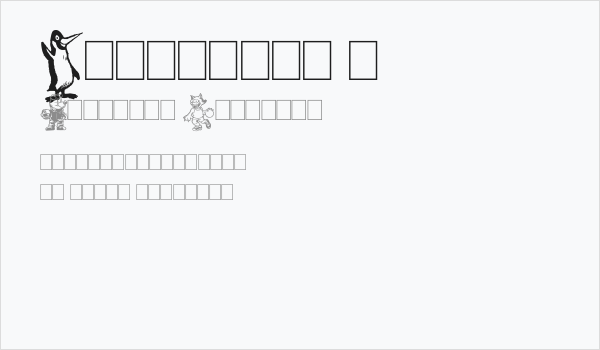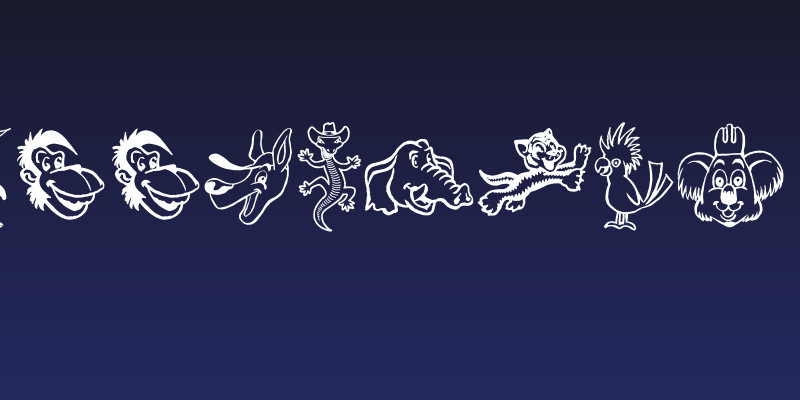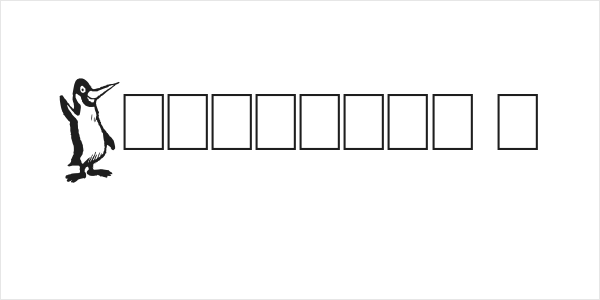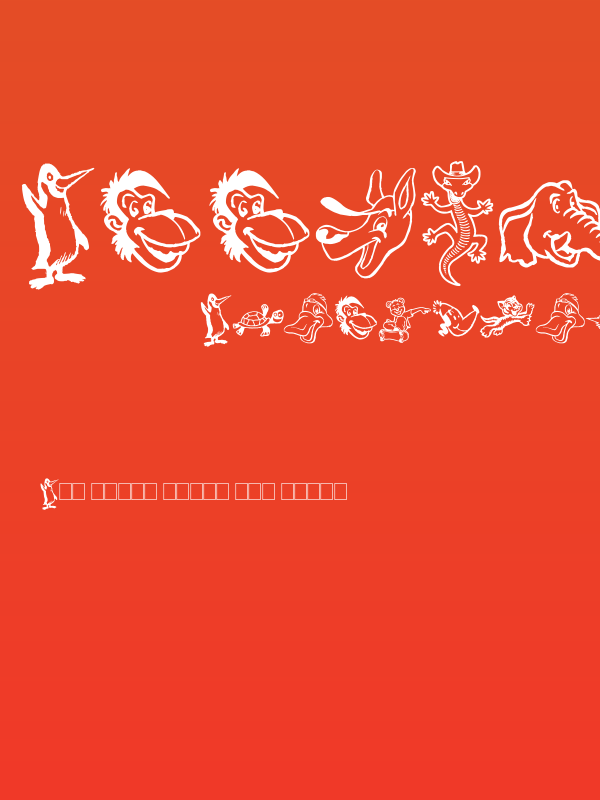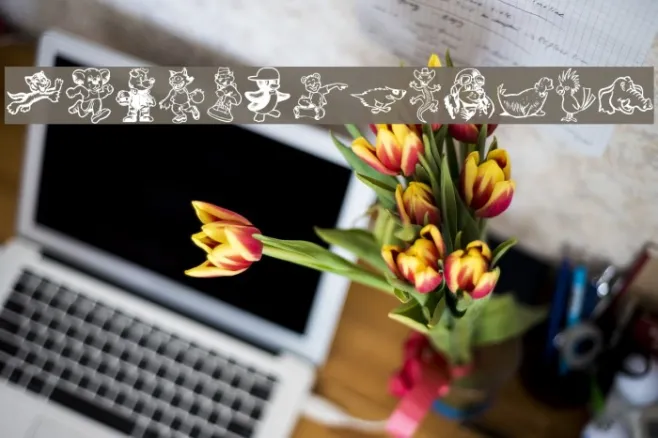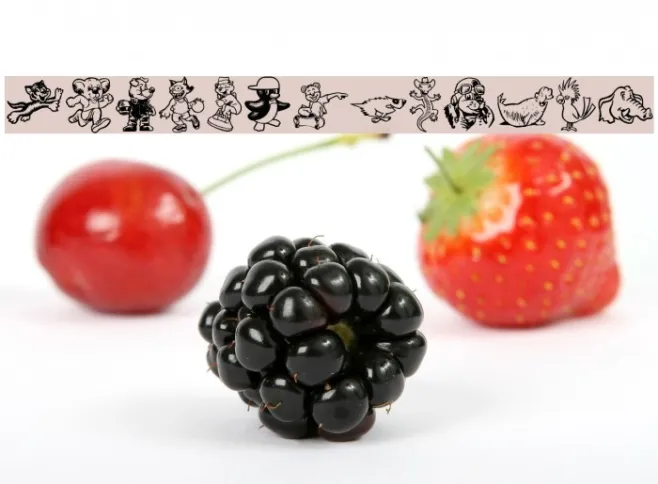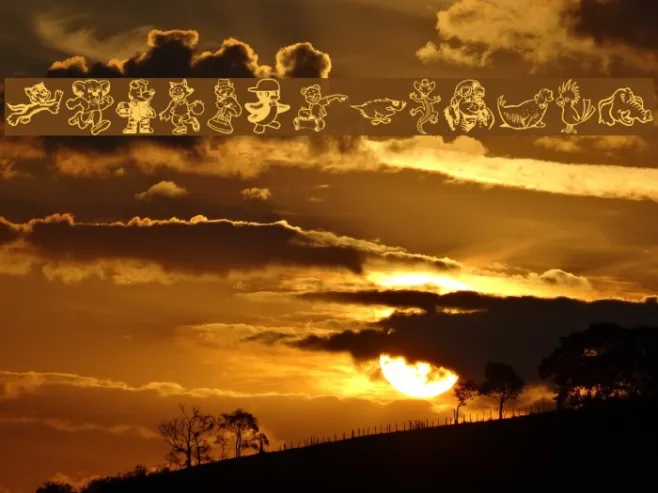
Toonimals 2 Font
Toonimals 2 Description
A playful and whimsical collection of cartoon animal illustrations, each character representing a different letter, number, or symbol with exaggerated and expressive features. The style is bold, outlined, and highly decorative, with each glyph being a unique animal or anthropomorphic figure.
| Overall Style | Playful, Whimsical, Decorative |
| Use Case | Decorative elements, Illustrations, Themed headlines, Kids’ projects |
| Proposed Projects | Children’s books, educational materials, party invitations, posters, playful branding, and decorative headings. |